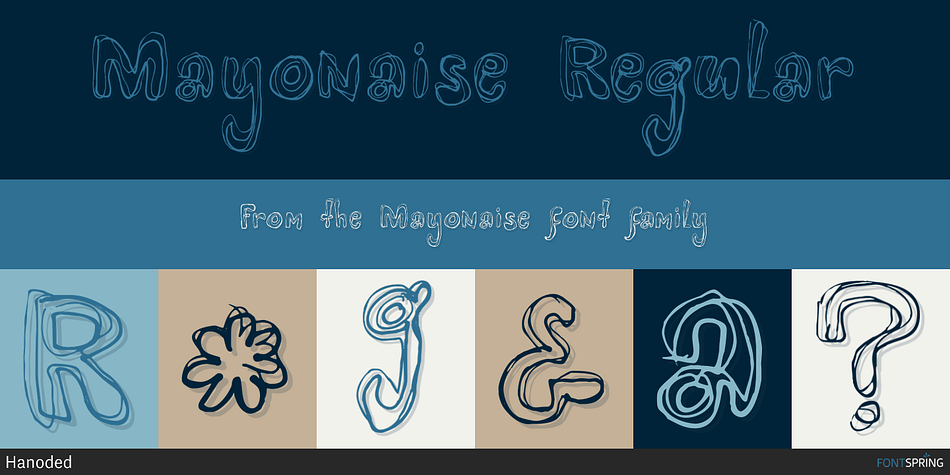
Mayonaise Regular
Mayonaise is a grunge and hand display font published by Hanoded.
Ah, so you’ve noticed a typo! Mayonnaise - the sauce, is written with double ‘n’! I know. This font was named after a Smashing Pumpkins song that I like very much.
Mayonaise is a bit of an ugly duckling. It is strange, open and messy, and might not be love at first sight. BUT, when you spend some time with Mayonaise and get to know her, you might actually fall in love. Just like that song I mentioned earlier.